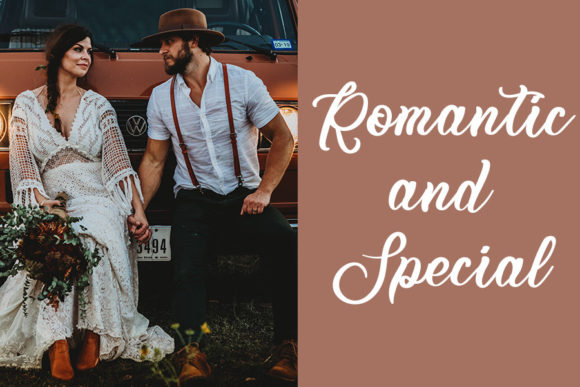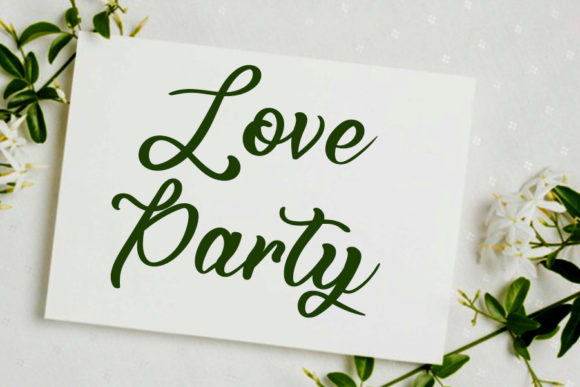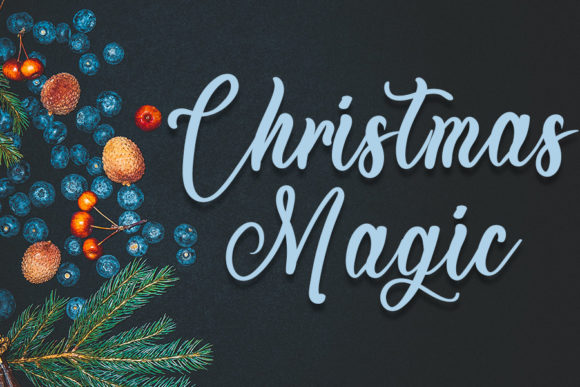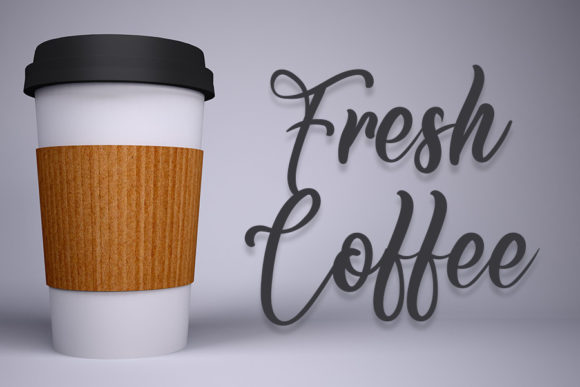
Yolanda Font
About Yolanda Font
Yolanda is a simple and casual handwritten font, carefully designed to become a true favorite. It maintains its classy calligraphic influences while feeling contemporary and fresh. Fall in love with it and bring your projects to the highest levels!